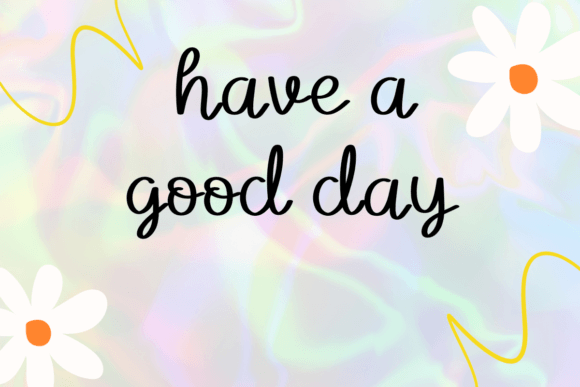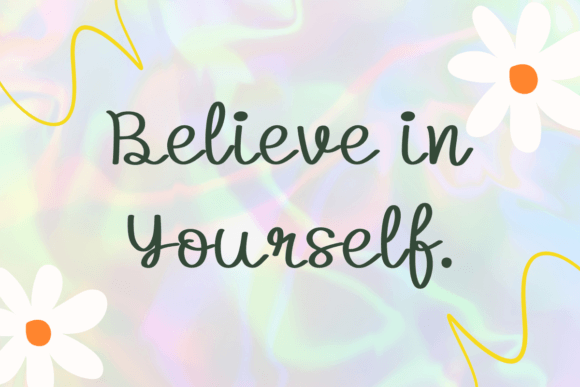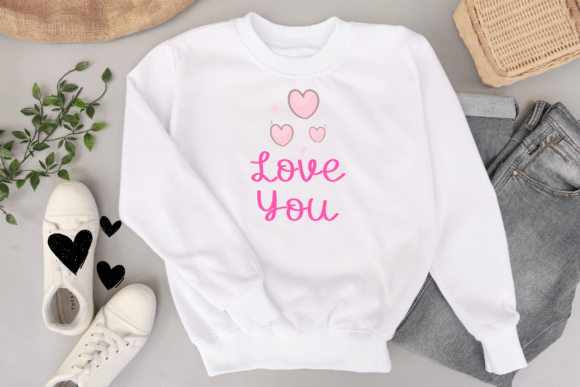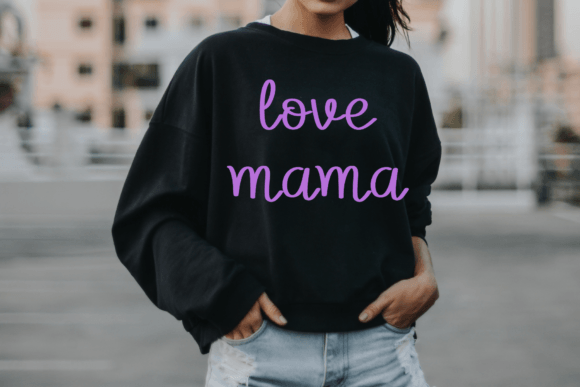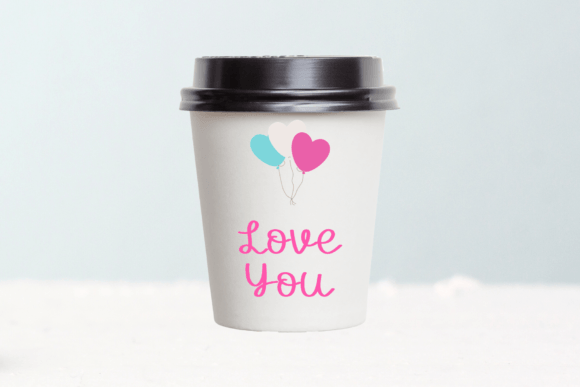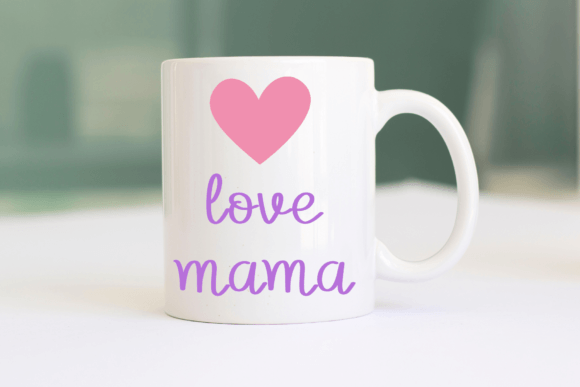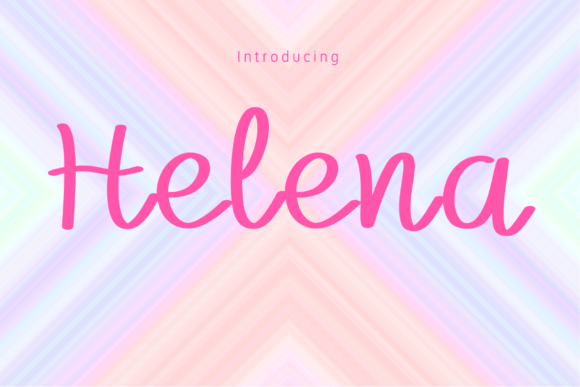
Introducing Helena Font: The Ultimate Handwritten Display Font for Creative Projects
Are you a designer or crafter looking for a unique and playful font to elevate your creative projects? Look no further than Helena Font! This cute and groovy handwritten display font is perfect for designing a wide range of products, from T-shirts and tote bags to wedding invitations and stickers.
What Makes Helena Font So Special?
Helena Font is a one-of-a-kind handwritten display font that boasts a charming and laid-back vibe. Its unique character set and groovy feel make it an ideal choice for designers and crafters who want to add a touch of personality to their work. Whether you’re creating a logo, designing a quote, or crafting a wedding invitation, Helena Font is sure to make your project stand out.
Endless Design Possibilities with Helena Font
One of the best things about Helena Font is its versatility. This amazing font can be used for a wide range of design projects, including:
- T-shirts and apparel: Create eye-catching designs for T-shirts, hoodies, and other clothing items that will make your customers love you.
- Tote bags and accessories: Add a personal touch to tote bags, hats, stickers, and other accessories with Helena Font’s playful and stylish letters.
- Wedding invitations and stationery: Make your wedding invitations, cards, and other stationery truly special with Helena Font’s elegant and whimsical feel.
- Logos and branding: Create a unique and memorable logo for your business or brand with Helena Font’s distinctive and groovy style.
- Quotes and posters: Design inspiring and motivational quotes, posters, and prints that will grab attention and spark conversation.
Why Choose Helena Font?
So, why should you choose Helena Font for your next design project? Here are just a few reasons:
- Unique and playful style: Helena Font boasts a one-of-a-kind handwritten style that’s sure to make your designs stand out.
- Easy to read and use: Despite its playful feel, Helena Font is easy to read and use, making it perfect for a wide range of design projects.
Tips and Tricks for Using Helena Font
To get the most out of Helena Font, here are a few tips and tricks to keep in mind:
- Experiment with colors and textures: Helena Font looks amazing in a variety of colors and textures, so don’t be afraid to get creative and try new things.
- Pair with other fonts: Helena Font pairs well with a range of other fonts, so try combining it with different fonts to create a unique and interesting look.
- Use it sparingly: While Helena Font is a beautiful font, it can be overwhelming if used too much. Use it sparingly to add a touch of personality to your designs.
In conclusion, Helena Font is a must-have for designers and crafters looking for a unique and playful handwritten display font. With its charming and groovy feel, endless design possibilities, and ease of use, Helena Font is the perfect choice for a wide range of creative projects. So why wait? Download Helena Font today and start creating amazing designs that will make your customers love you!